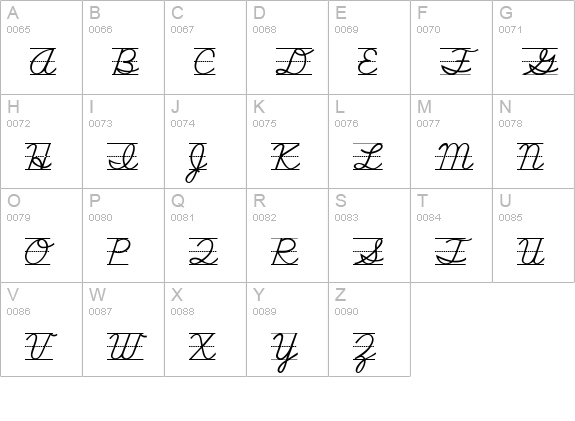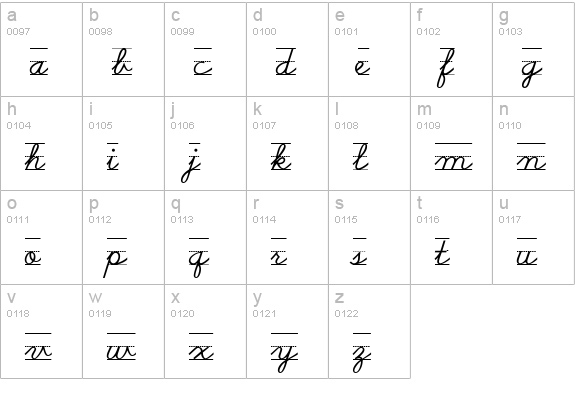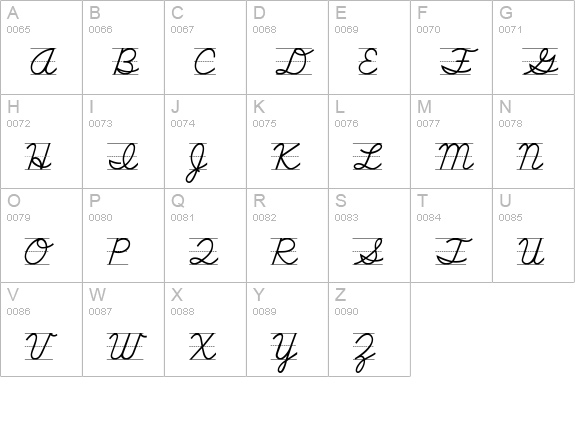
SchoolScriptDashed Font Details
SchoolScriptDashed font is a charming and playful typeface that is perfect for educational materials, especially those targeting young learners. This font features dashed lines that mimic handwriting, making it an ideal choice for teaching children how to write in a clear and legible manner. With its whimsical and friendly appearance, SchoolScriptDashed brings a sense of fun and creativity to any project. What sets SchoolScriptDashed font apart is that it is not only visually appealing, but also freely available for download. FontsMarket.com offers this delightful font as a free resource, allowing educators, designers, and anyone in need of a captivating typeface to access it easily. This means that you can effortlessly incorporate SchoolScriptDashed into your lesson plans, worksheets, or any other educational materials without any hassle or cost. Whether you are creating teaching aids, designing educational apps, or crafting engaging worksheets, SchoolScriptDashed font is the perfect choice to captivate young minds and enhance their learning experience. Its distinctive dashed lines add a touch of authenticity, giving the impression of handwritten text and making it easier for students to trace and follow along. Don't miss out on this fantastic opportunity to enhance your educational materials with SchoolScriptDashed font. Download it for free at FontsMarket.com and watch as your materials come to life with its playful and engaging style. Let SchoolScriptDashed font become your go-to typeface for all your educational projects, and experience the difference it can make in capturing the attention and imagination of young learners.